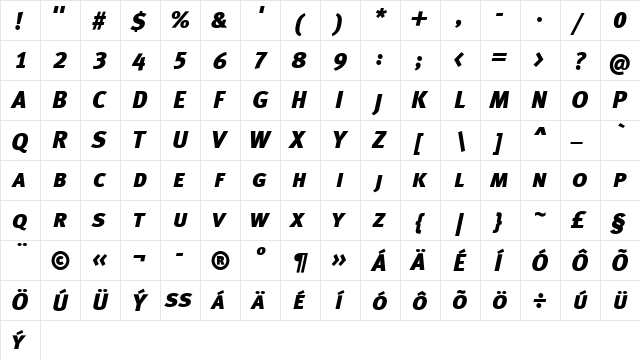
MetaBlackCELF Medium Font Preview
MetaBlackCELF Medium
MetaBlackCELF Medium Font Details
| Foundry | Erik Spiekermann, . Published by FontShop International for FontFont library. Meta is a trademark of FSI, Fonts and Software GmbH. Created by Erik Spiekermann, Ole Schaefer, Dmitri Sorokin. Vendor URL:http://www.fontfont.de |
Design Context for MetaBlackCELF Typeface
MetaBlackCELF takes a measured approach to typography — its balanced proportions and neutral character make it a reliable workhorse for both digital and print work.